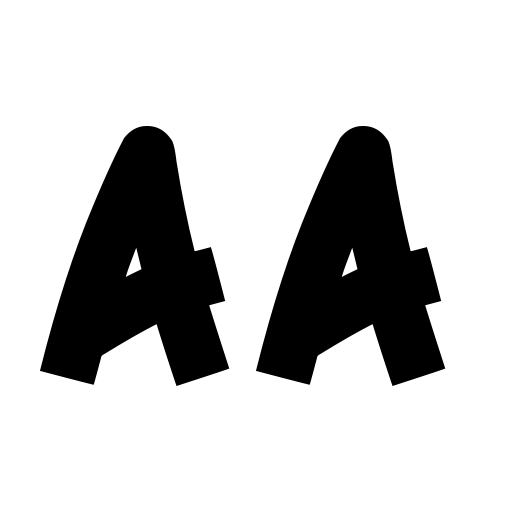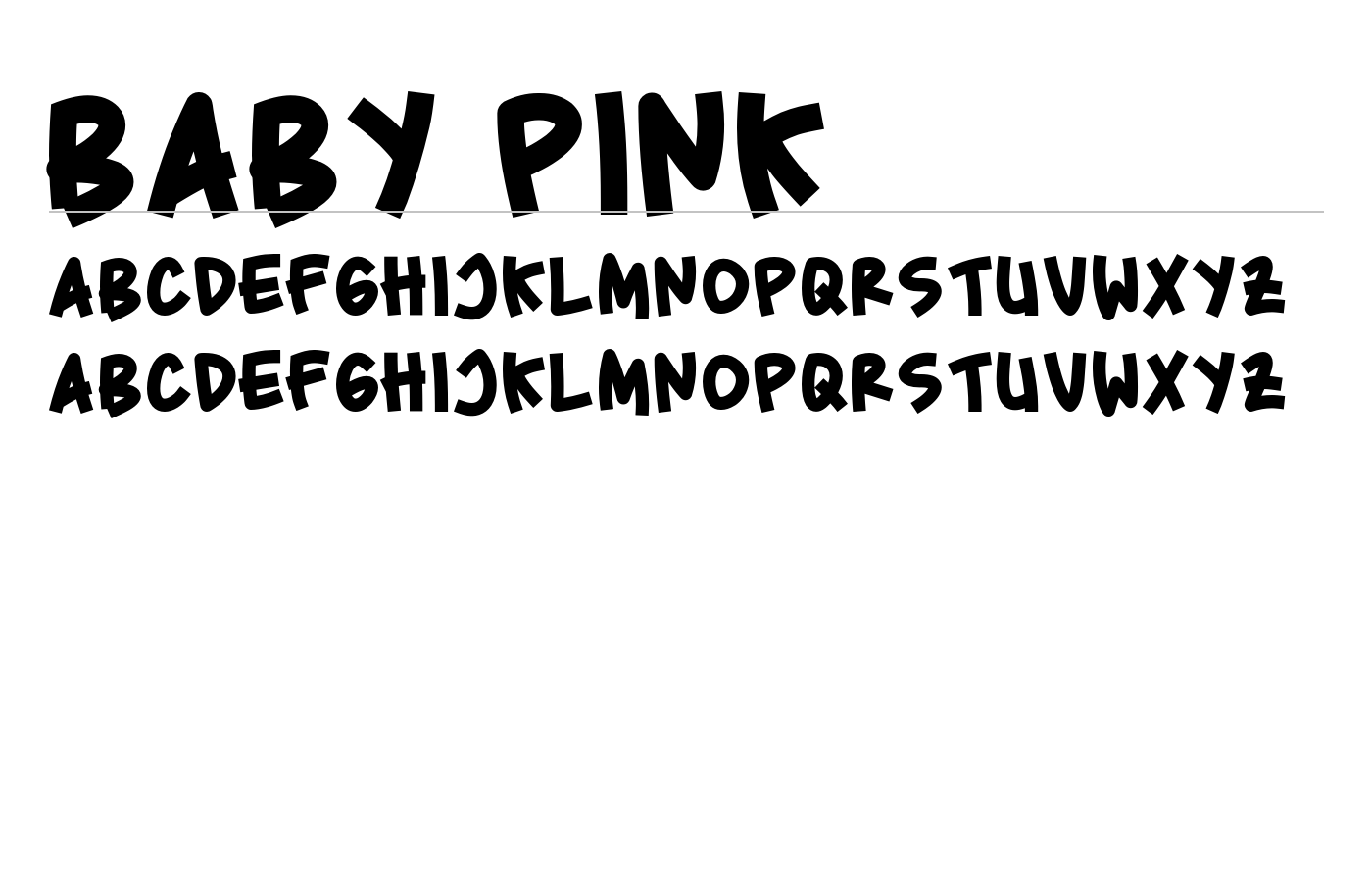
Baby Pink Font is a bold, playful sans serif typeface with a hand-drawn, cartoon-like style that makes it feel lively and fun. Its irregular, slightly exaggerated letterforms and thick strokes give it a friendly and informal vibe, perfect for children’s books, playful branding, or casual headlines. This font works well where a youthful and energetic personality is desired, adding charm and approachability to any design.
Baby Pink Font
About Baby Pink Font
| Font family | Baby Pink Font |